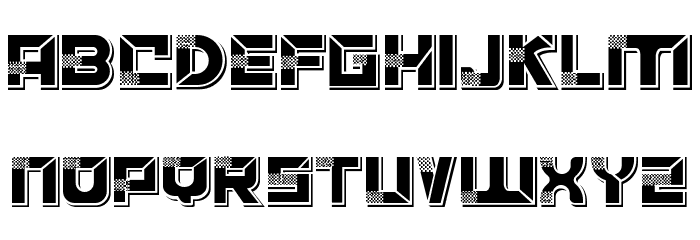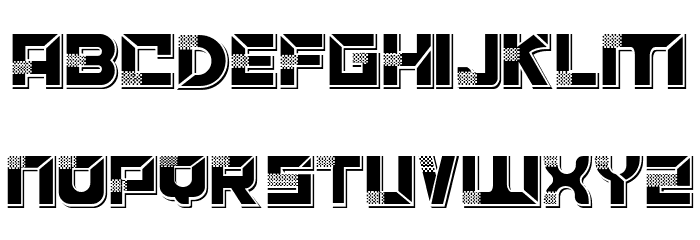
ACCELERARE Demo Shadow Font
This font features a bold, geometric design with a distinct shadow effect that adds depth and dimension to each character. The letters are constructed with solid, block-like shapes, and the shadowing creates a dynamic, three-dimensional appearance. The style is reminiscent of retro or vintage designs, with a modern twist that makes it suitable for eye-catching headlines or display purposes. The use of contrasting colors and patterns within the characters enhances the visual impact, making it ideal for projects that require a strong, attention-grabbing typeface.
A bold, geometric font with a distinctive shadow effect, perfect for striking headlines.
- Proposed Projects: Ideal for posters, logos, branding materials, and any project needing a bold, impactful typeface.
- Overall Style: Modern, Vintage